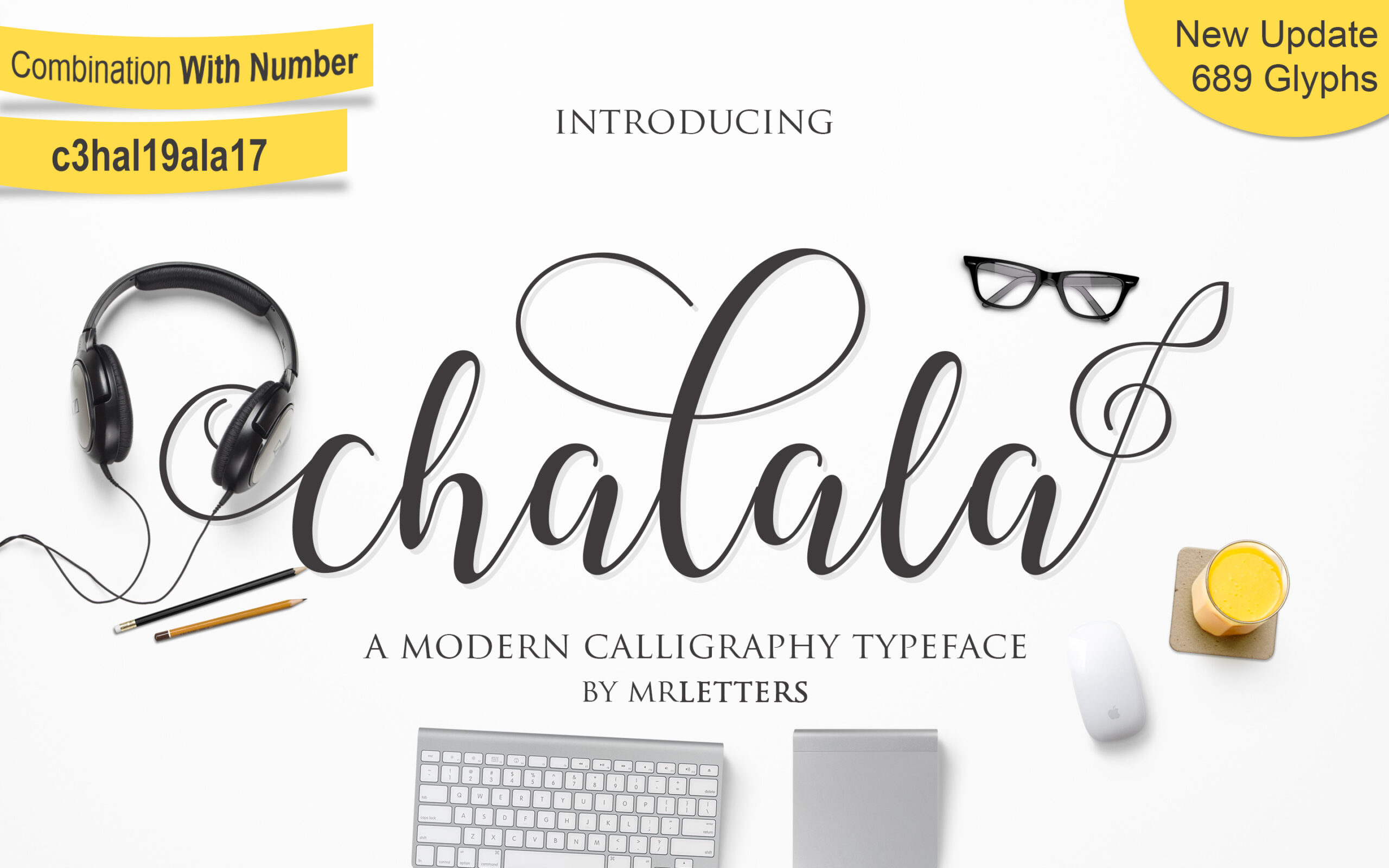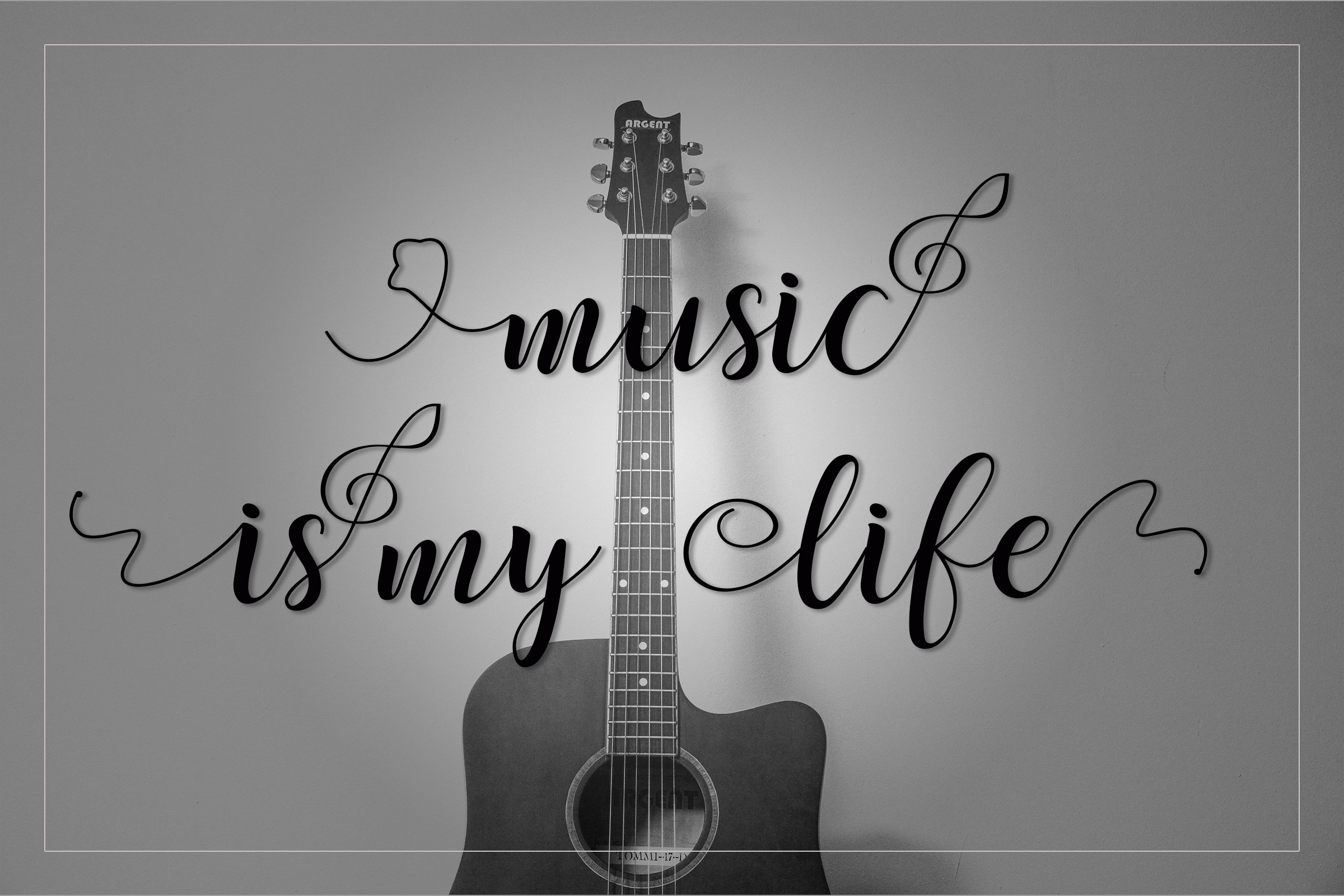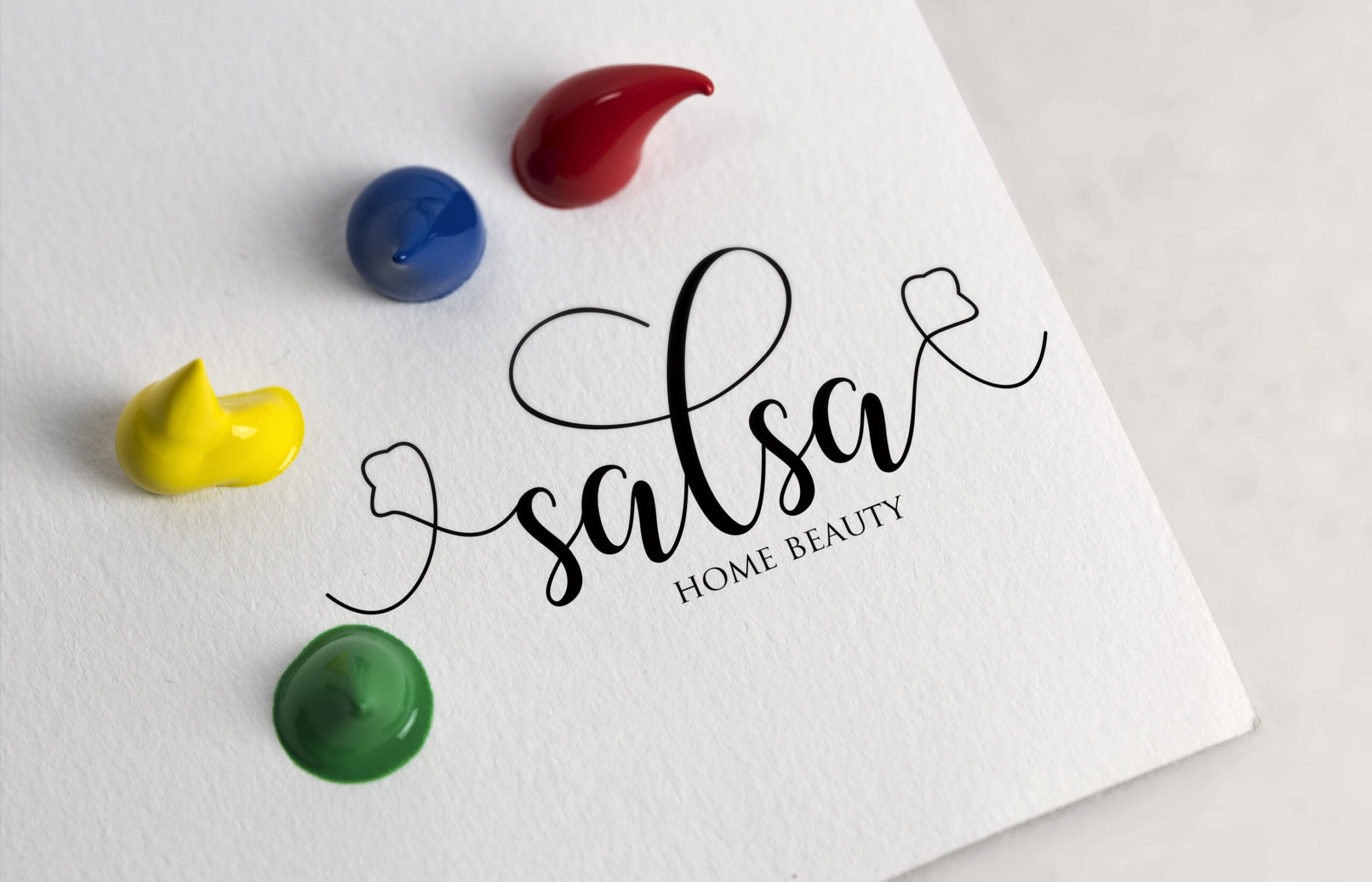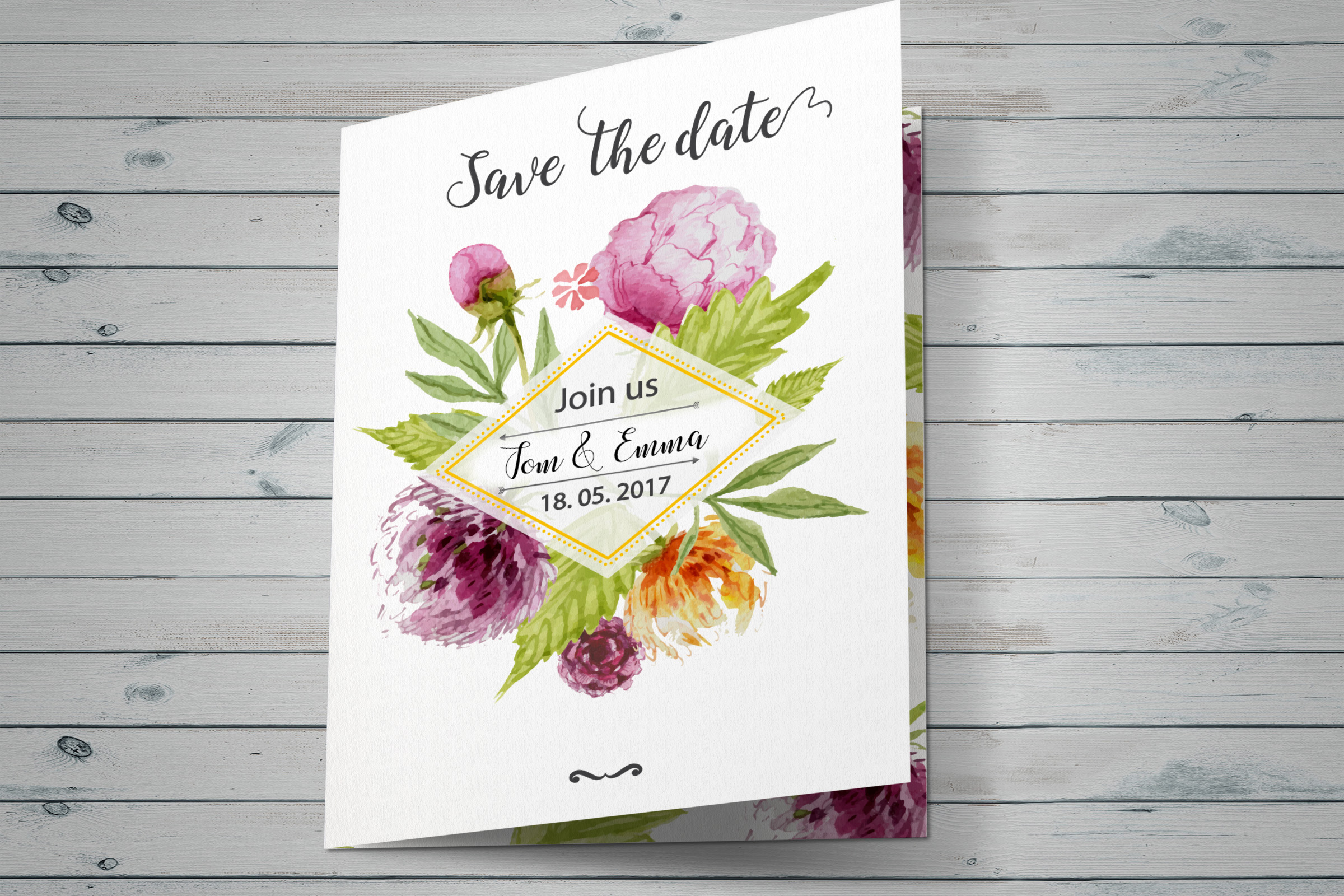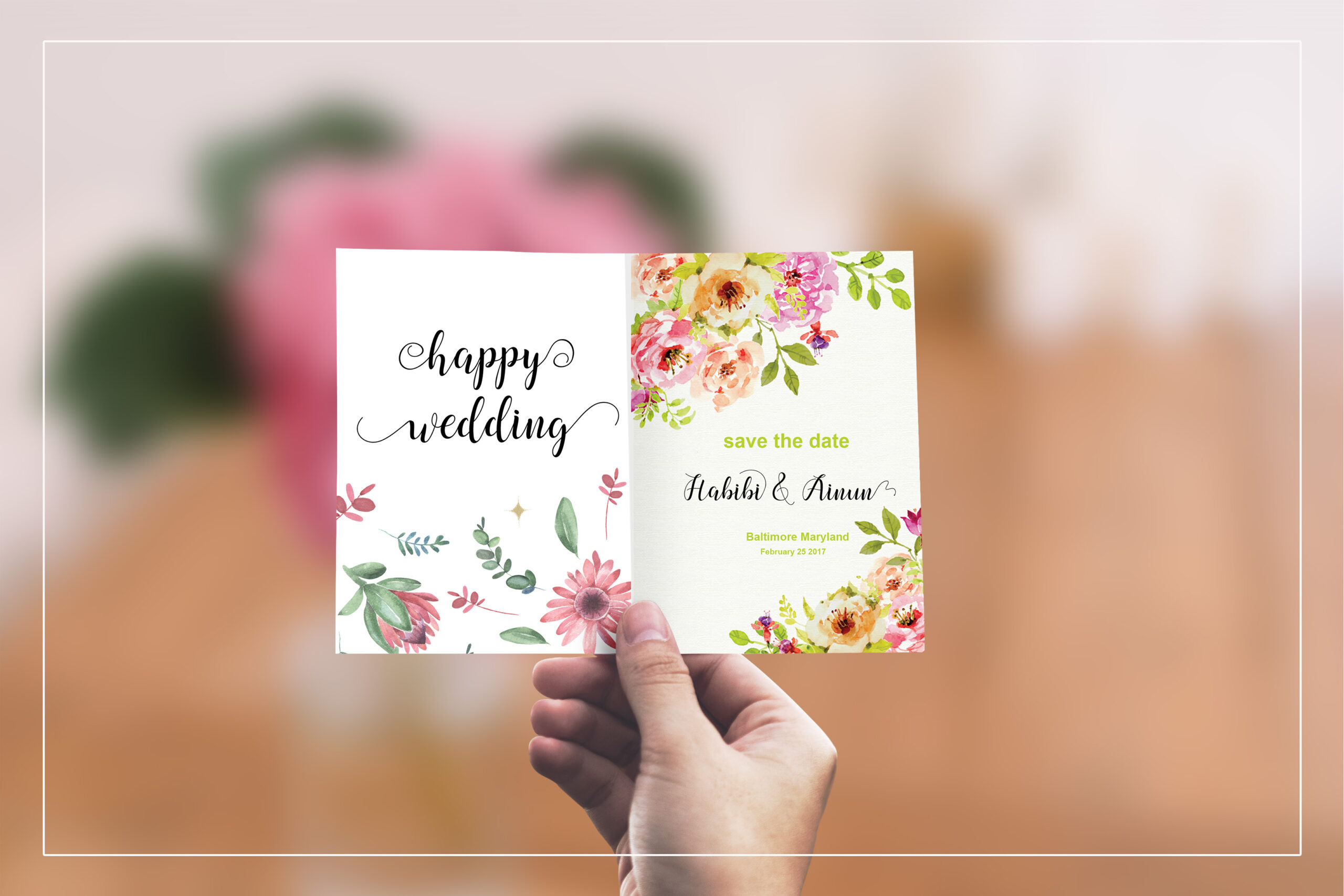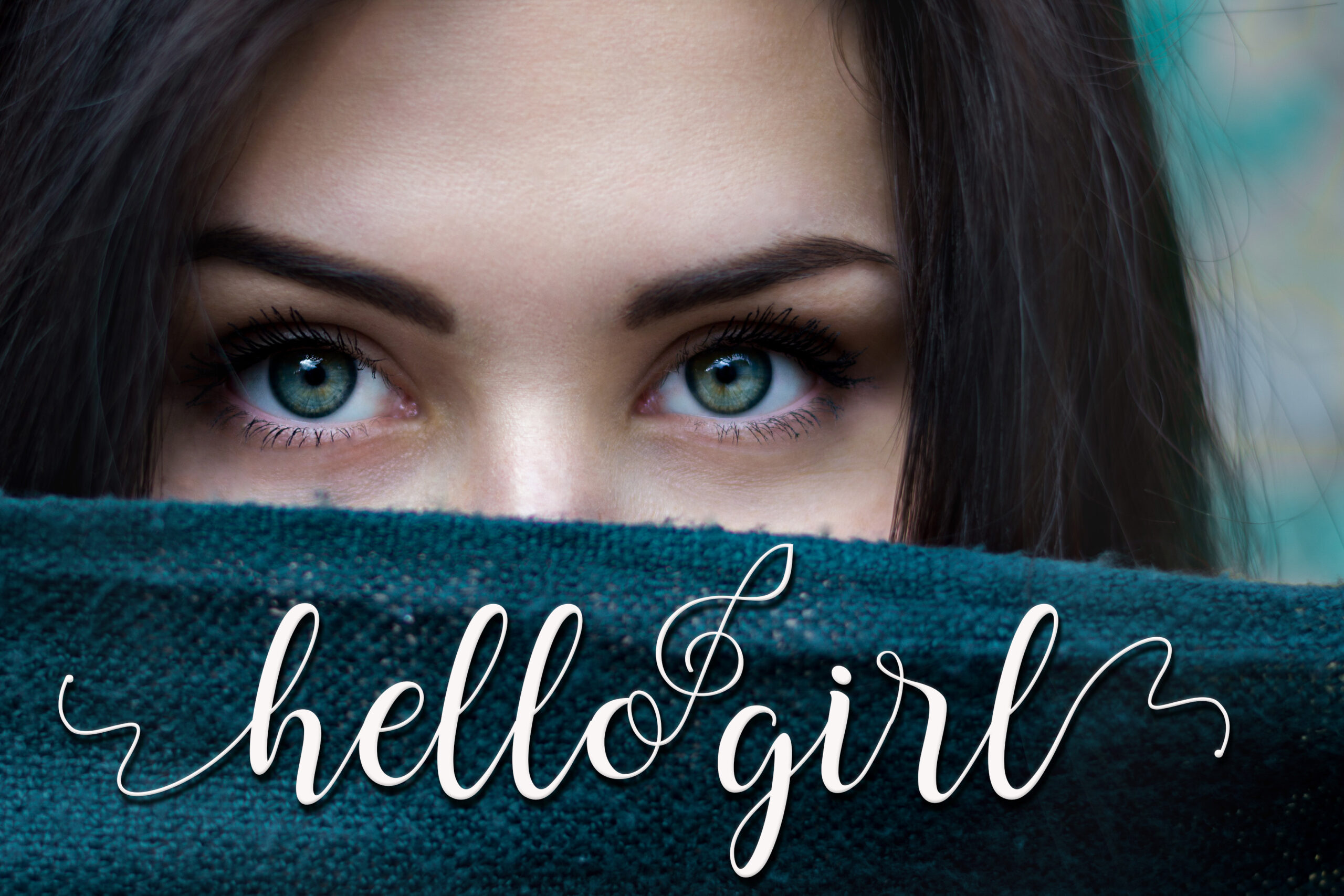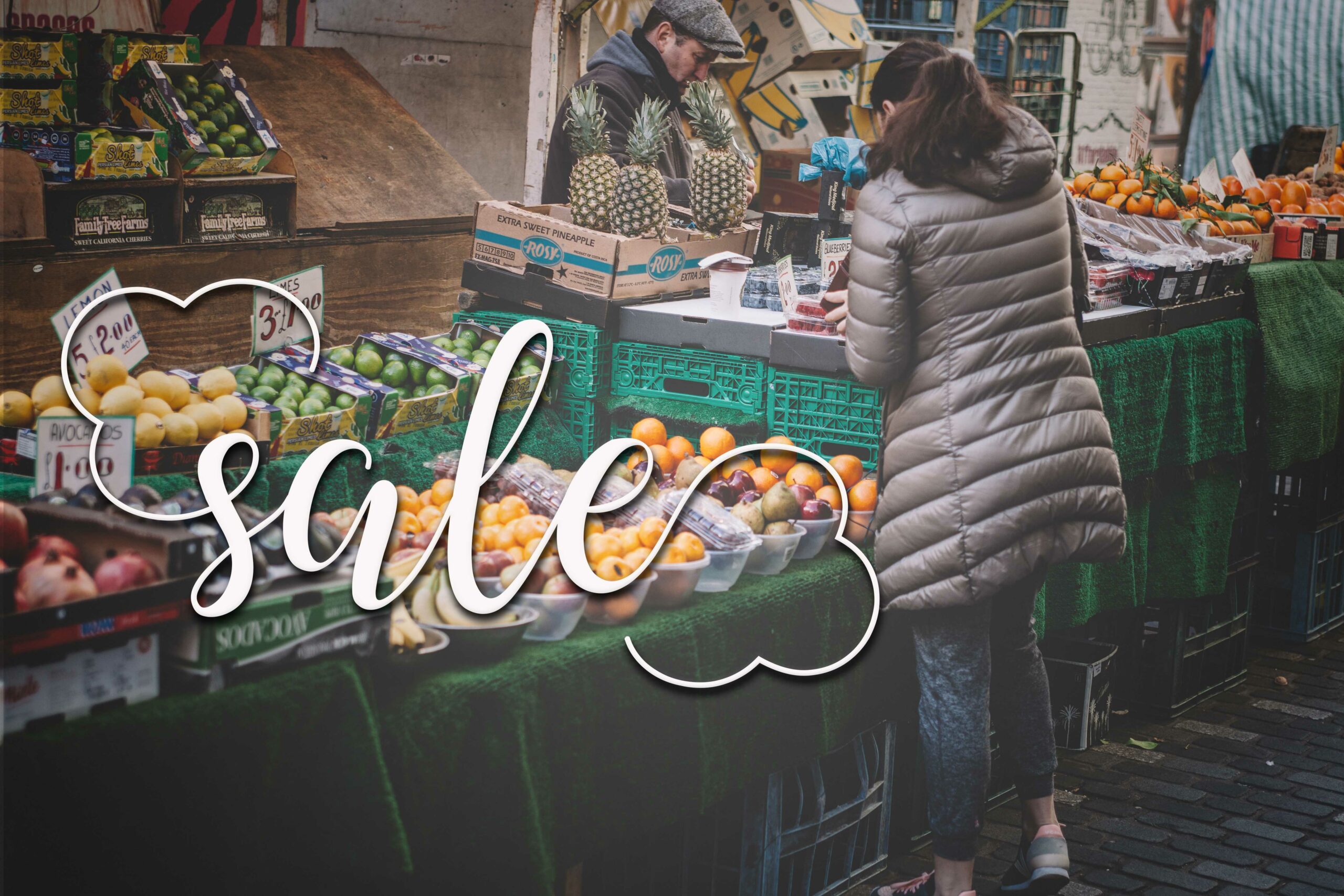
HomeScript FontsChalala Font Script Fonts Chalala Font FacebookXPinterestWhatsApp Chalala Font Poster 2 Chalala Font Poster 3 Chalala Font Poster 4 Chalala Font Poster 5 Chalala Font Poster 6 Chalala Font Poster 7 About Chalala Font Chalala Script a fresh & modern script with a handmade calligraphy style. It features 656 unique glyphs. DOWNLOAD ON CREATIVE FABRICAThis font is sold and delivered by Creative Fabrica. Font Canyon may earn a commission if you buy through this link. People also explored Valentine Holoday Font Be Happy Font Spencerian Palmer Penmanship Hornet Font Hi Janetta Font The Magestica Font Magna Bold Font Smart Signature Font Frankfurt Font 366 0 TagsChalala Font Previous articleNoermala FontNext articleFraulein Revival Font LEAVE A REPLY Cancel reply Comment: Please enter your comment! Name:* Please enter your name here Email:* You have entered an incorrect email address! Please enter your email address here Website: Save my name, email, and website in this browser for the next time I comment. Personal Use Free Micahel Personal Use Free Read more about this font Zephan Personal Use Free Read more about this font Engine Personal Use Free Read more about this font Carnivals Personal Use Free Read more about this font BLOG Best Fonts for YouTube Videos: Make Your Thumbnails Stand Out Best Fonts for YouTube Videos: Make Your Thumbnails Stand Out Choosing the right font can make a massive difference in how your YouTube videos perform.... Modern Sans-Serif Fonts That Brands Love in 2025 Where to Buy American Fonts Online in 2024 Top 7 Google Fonts Alternatives for Faster and Privacy-Friendly Web Design (2025)